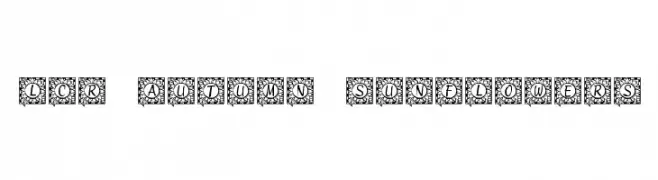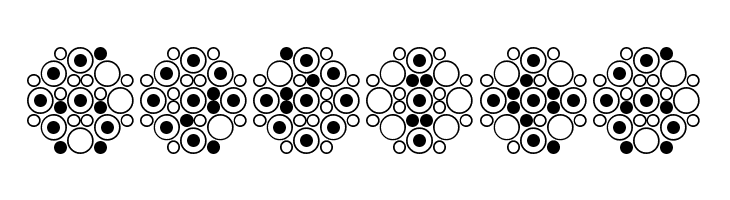
( Intellecta Design - new.myfonts.com/search/intellecta/fonts/?sort=sales?refby=paulow )
Ornate, hand-drawn calligraphic frames with vintage flair.
( Intellecta Design - new.myfonts.com/search/intellecta/fonts/?sort=sales?refby=paulow )
Ornate botanical and vegetable-themed dingbat illustrations.
( LeChefRene - members.aol.com/lcrfonts/ )
A decorative font with characters encased in sunflower-themed borders.
( Nght's Place - www.crosswinds.net/~nghtmvs/font/fonts1.html )
Ornamental Celtic knotwork and symbol dingbats.
( Nght's Place - www.crosswinds.net/~nghtmvs/font/fonts1.html )
Ornate heart and floral decorative pattern.
( Nght's Place - www.crosswinds.net/~nghtmvs/font/fonts1.html )
Bold uppercase font with decorative circular borders.
( Pixel Kitchen )
Intricate circular patterns resembling fossil imprints, highly decorative.
( Renny Murray - www.rennysniche.com )
A decorative font with uppercase letters in floral circular borders.
A bold, 3D font with circular borders and shadow effects for a striking appearance.